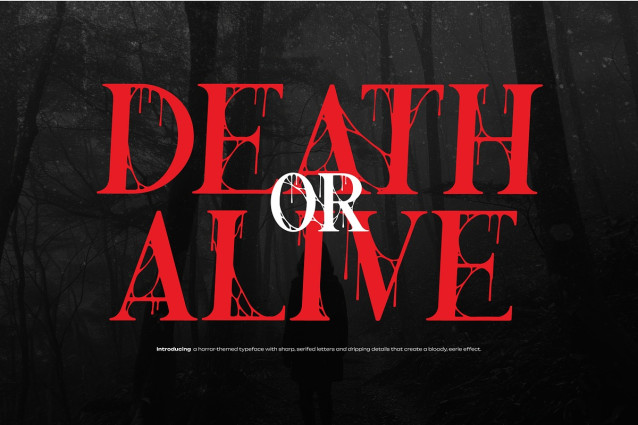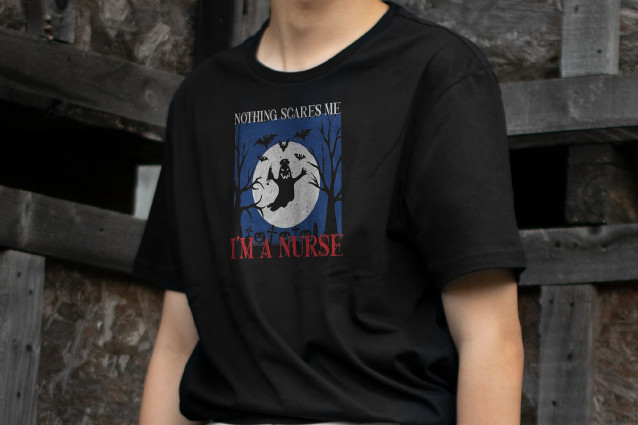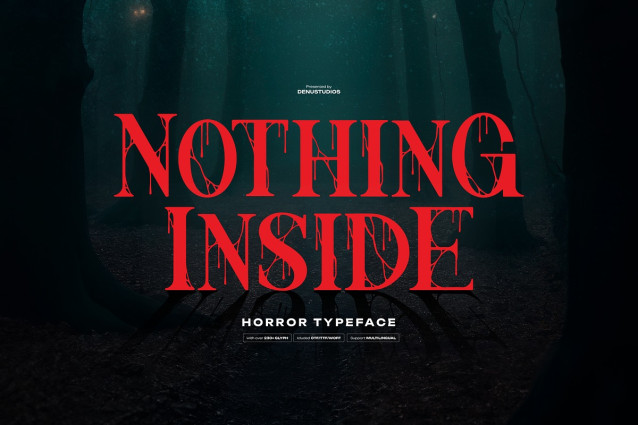
Nothing Inside Font
Nothing Inside Font | Horror Typeface, from Denustudios, suitable for any projects such as: logos, branding projects, homeware designs, product packaging, mugs, quotes, posters, shopping bags, t-shirts, book covers, name card, invitation cards, greeting cards, label, photography, watermark, special events, and all your other lovely projects that need a Horror Typeface taste.